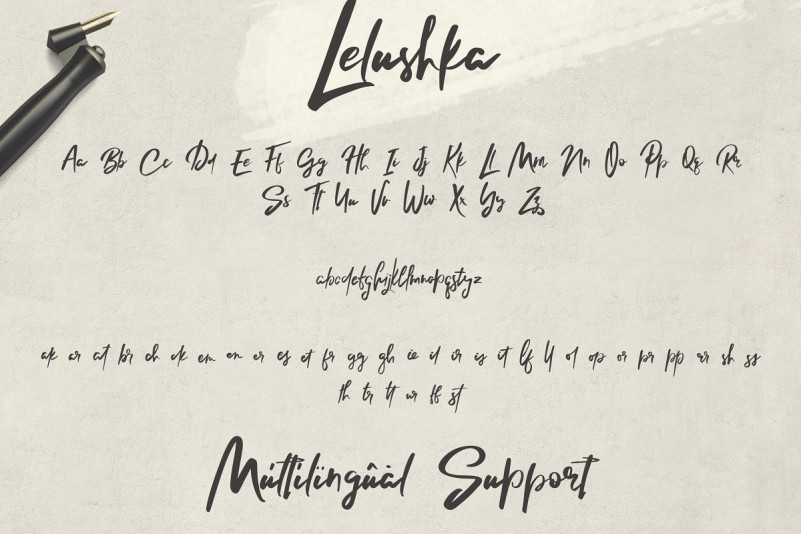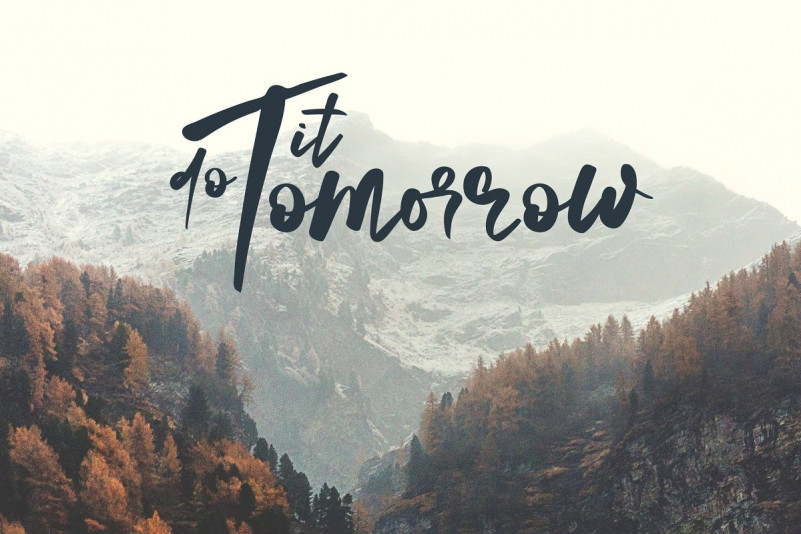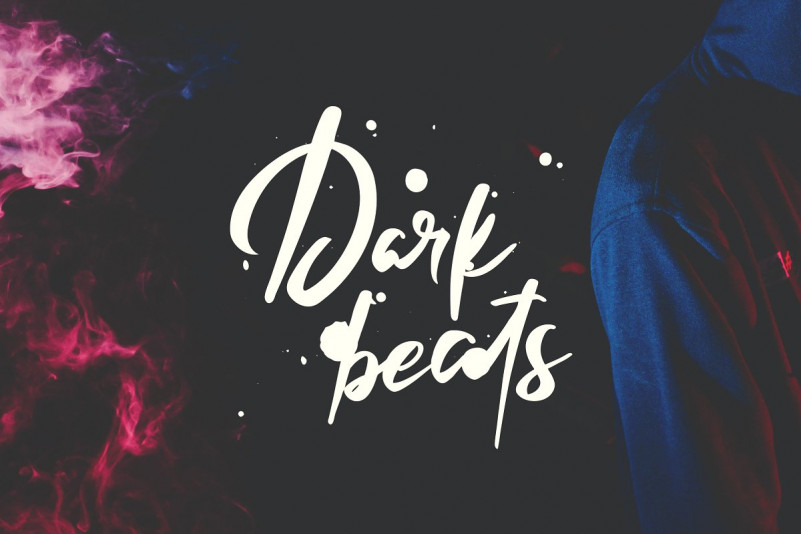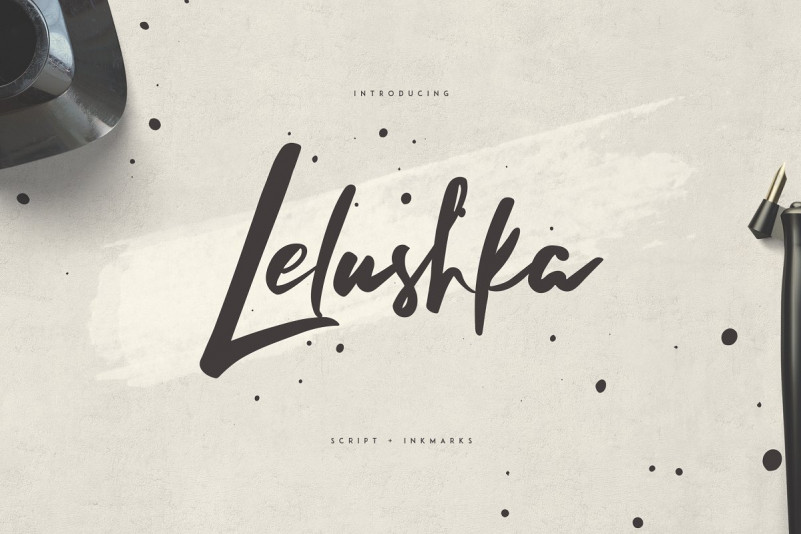
Lelushka Script Font
Hello buddy! Lelushka Font– Inspired by brush style and combination with Hand Lettering style, it will make your design more beautiful. It is designed and shared by VPcreativeshop. Lelushka is grunge, urban script with 20 ink marks and multilingual support. It’s a very versatile font that works great in large and small sizes. Lelushka Script is perfect for branding projects, home-ware designs, product packaging, magazine headers – or simply as a stylish text overlay to any background image.